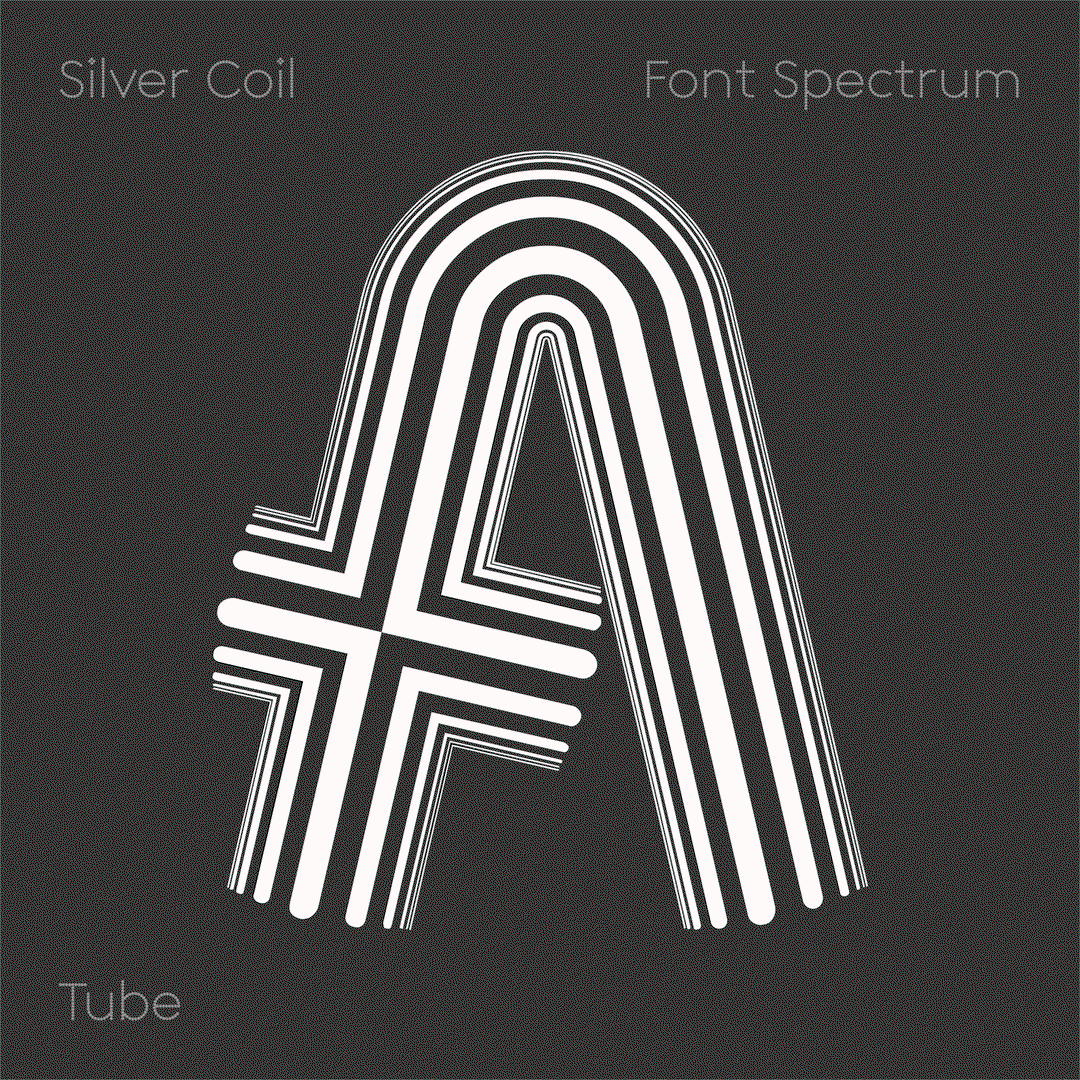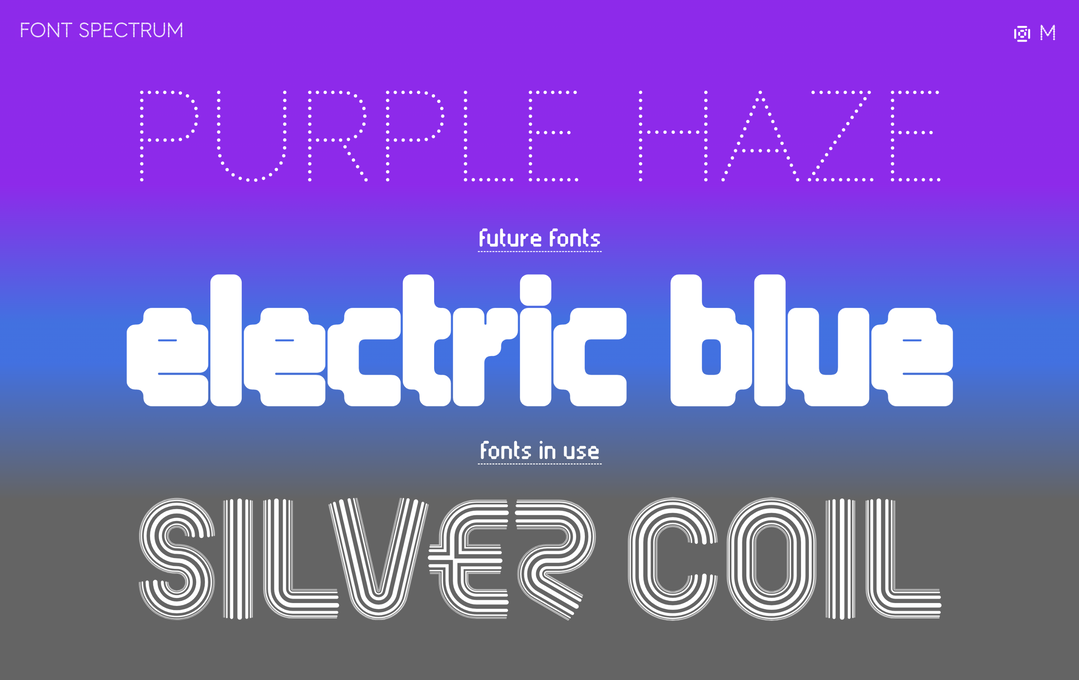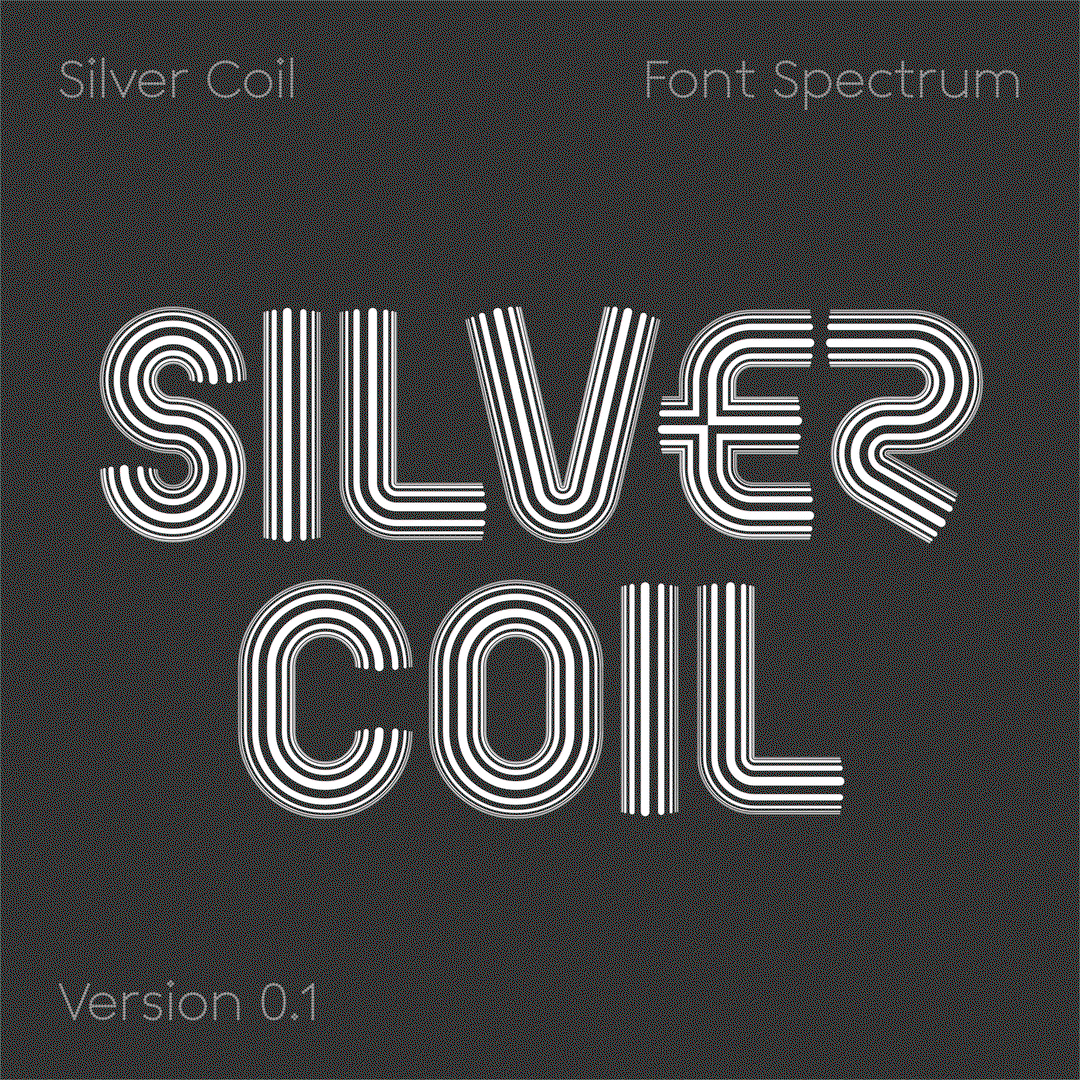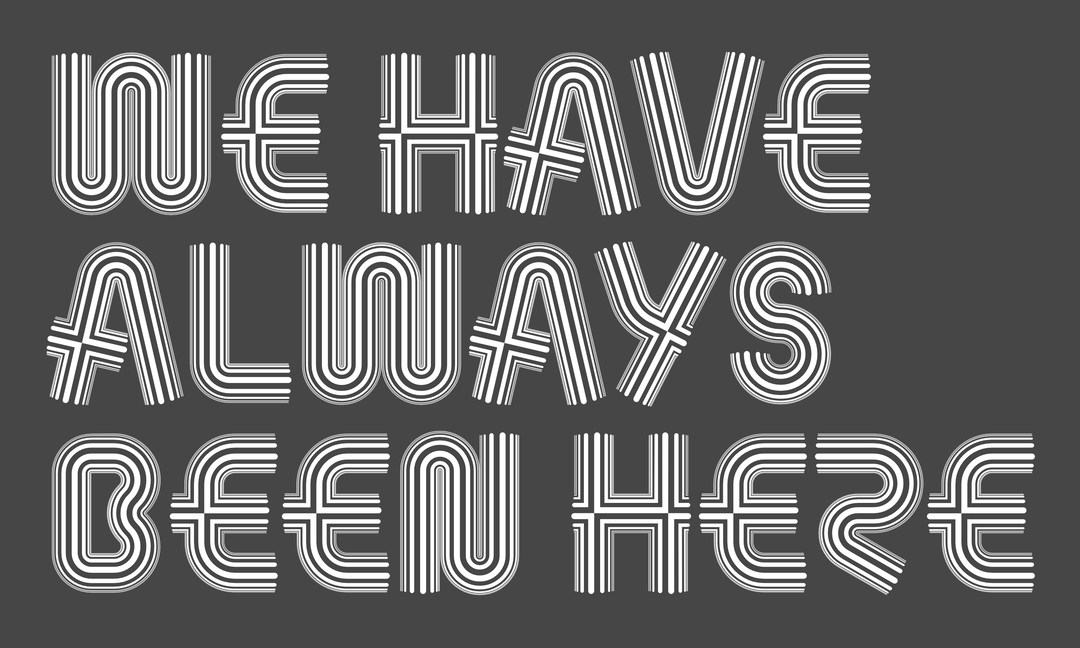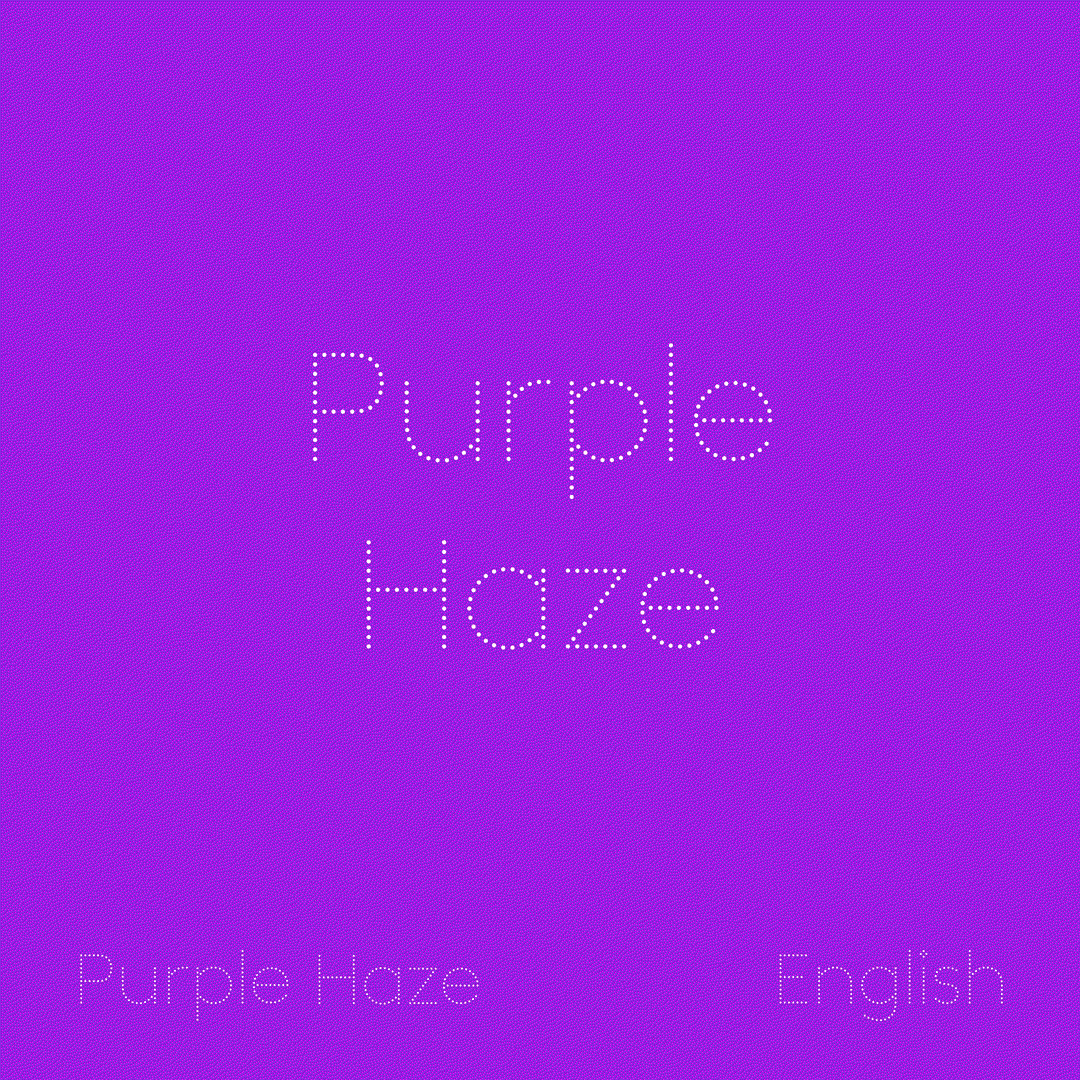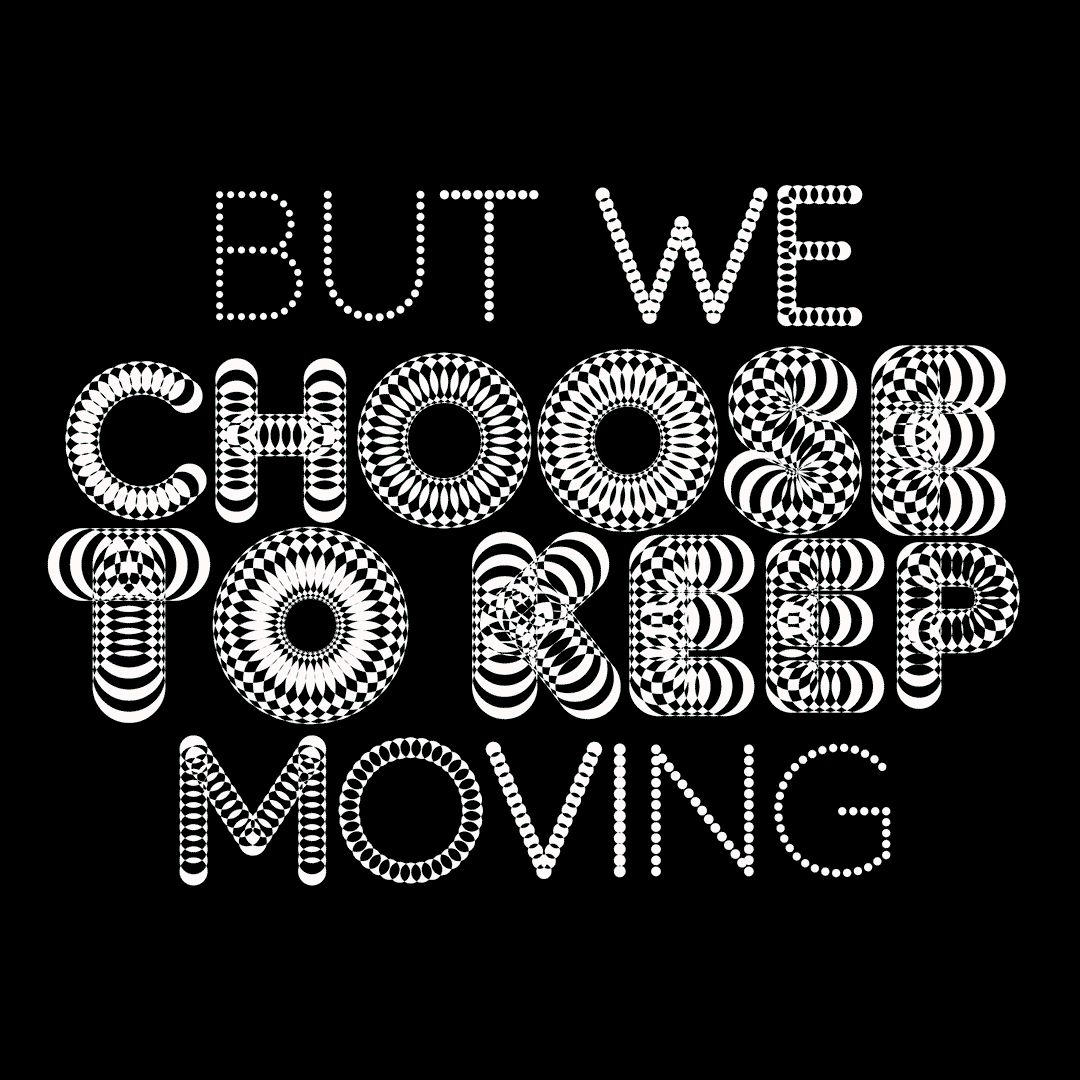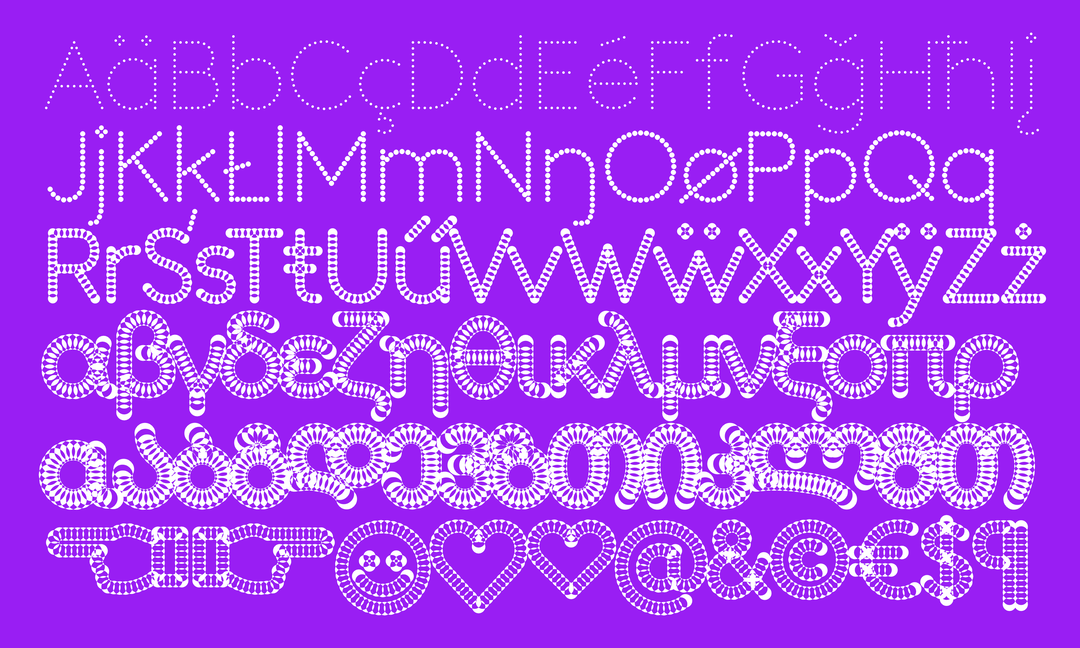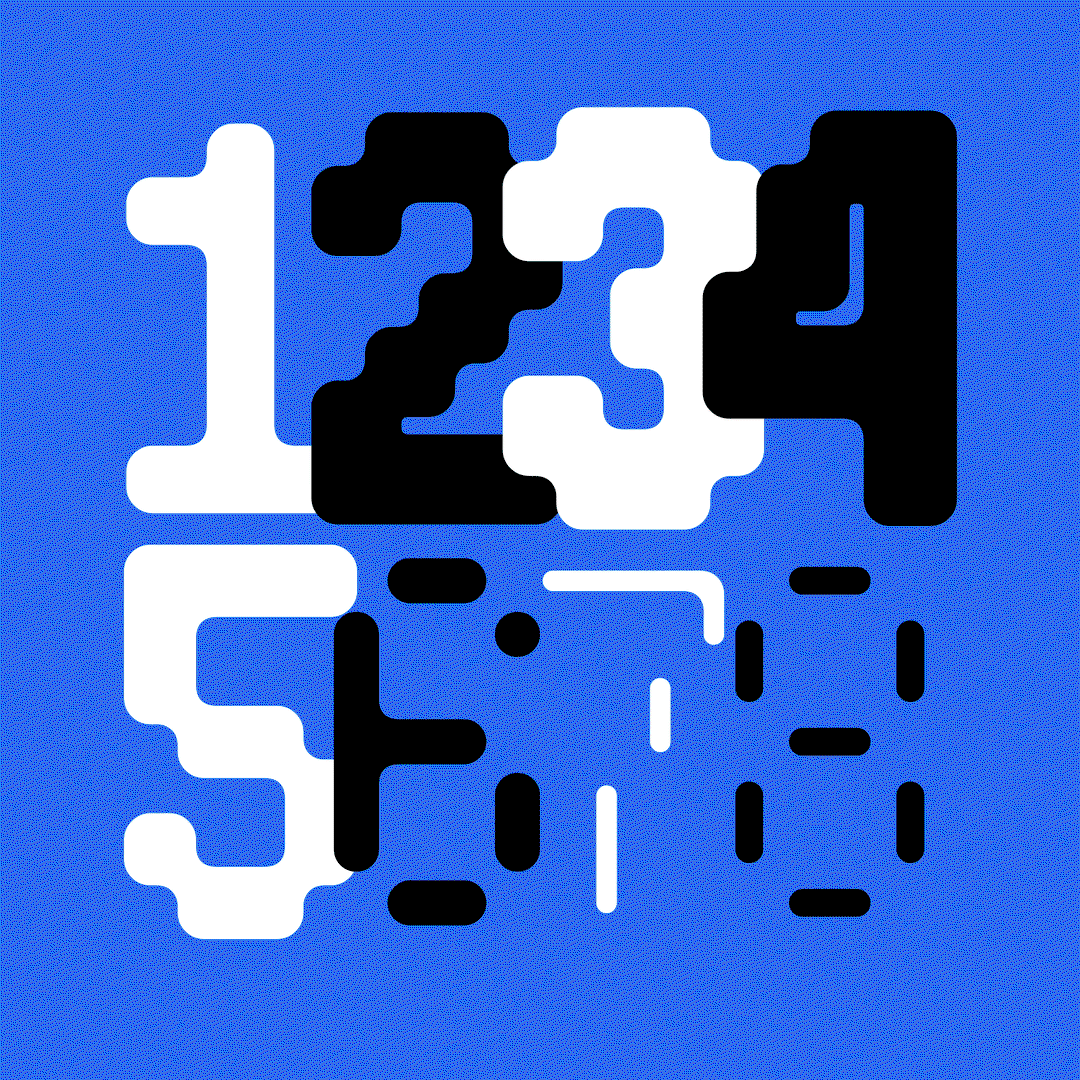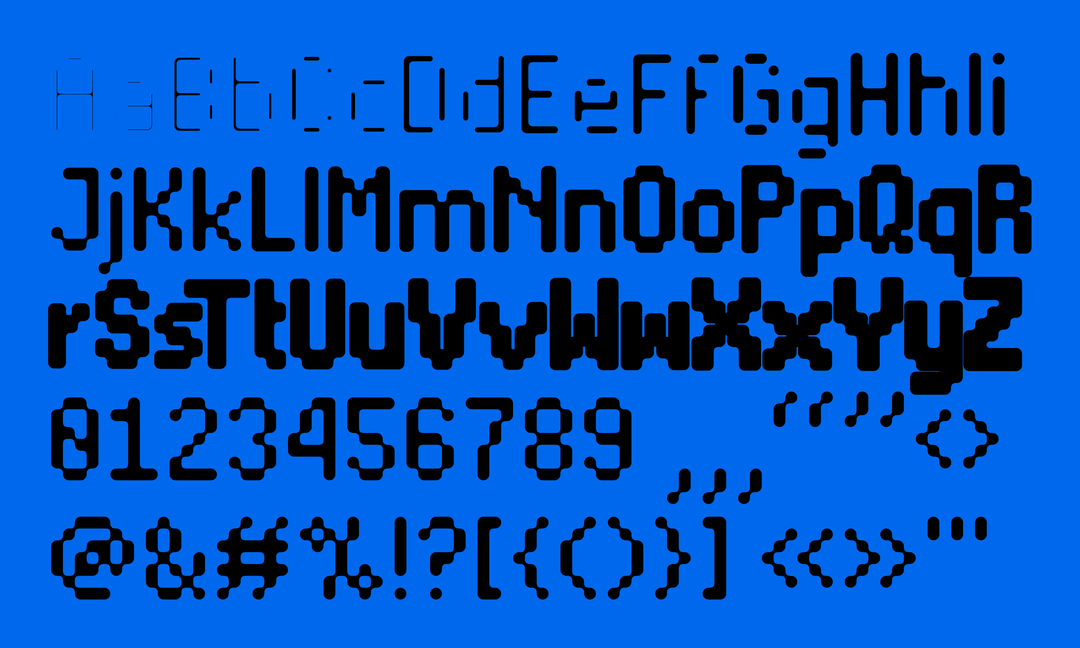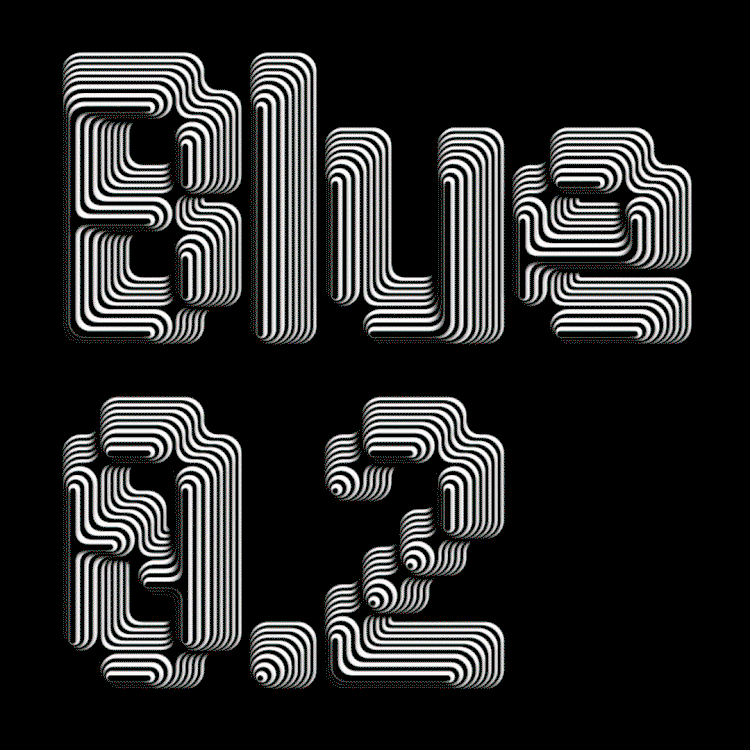
Font Spectrum is making futuristic typefaces that shift to make new forms
At this Amsterdam-based foundry, things go from readable weights to “decorative extremes” with imaginative methods of integrating motion.
The designers Daniël Maarleveld and Edgar Walthert first met over a decade ago, and, being the type specialists that they are, saw potential for some brilliant font-based collaborations in each other. Their first typeface emerged from a variable font challenge: 36 days of type, by Letterspace.amsterdam – a challenge that invites designers, illustrators and graphic artists alike to create original animated numbers and letters of the Latin alphabet to add to a wider, collaborative online library.
As one of the coordinators of the event, Edgar encouraged Daniel to design the number 9. Although they didn’t know it at the time, this small type experiment would later lay the groundwork for their collaborative typeface Purple Haze, a variable font with a “readable regular weight and decorative extremes” now available under their joint foundry Font Spectrum. Since launching in 2021, the experimental type foundry has released two other animated variable fonts alongside purple haze: electric blue – “inspired by the neon glow of the 80s”, and silver coil – “a typeface that can be looped into an infinite rotation”.
Their joint output intersects Daniel’s background in motion design and the vast array of animated letters that he shares on his Instagram, and Edgar’s expertise in designing variable fonts which started as early as “the late 90s, using the MultipleMaster format”, he says. The foundry’s work aims to continue to “explore the intersection of animation and the new possibilities of OpenType Font Variations,” shares Edgar. “There are many more colours in the rainbow and much more to come.”